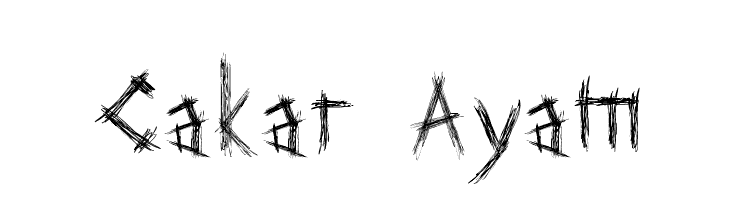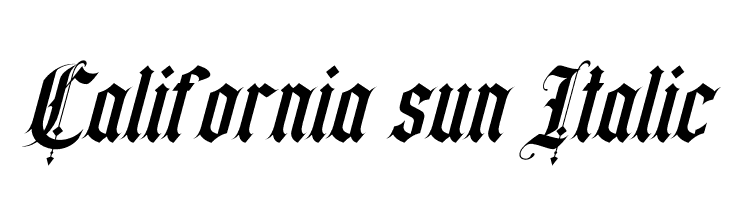
A rough, sketch-like font with dynamic, hand-drawn strokes.
A bold, three-dimensional font with a striking shadow effect and geometric design.
A modern, geometric sans-serif font with uniform stroke thickness.
A bold, italicized font with high contrast and a modern style.
A bold, slanted font with a modern and dynamic style.
A dynamic brush-style font with bold, angular strokes and a handwritten feel.
A bold, geometric font with circular and semi-circular elements.
A classic blackletter font with ornate, gothic elements and bold strokes.
A modern blackletter font with italic slant and intricate detailing.
A bold, blackletter-style font with high contrast and ornate details.